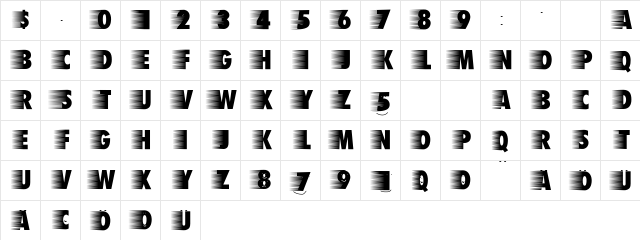
BreezeStarboards Regular Free Font
BreezeStarboards Regular
Design Context for BreezeStarboards
BreezeStarboards is a composed and adaptable typeface that performs quietly and consistently across a wide range of design contexts.